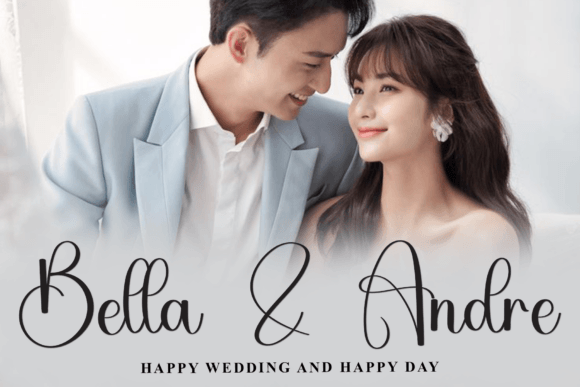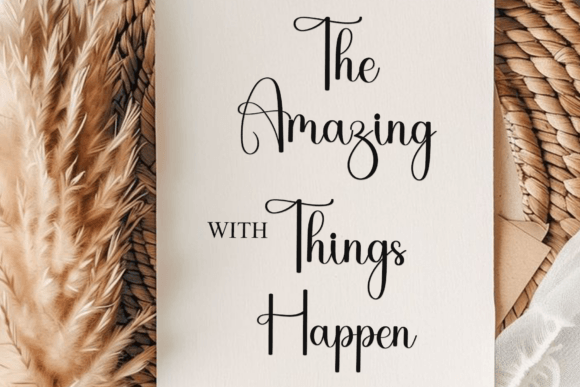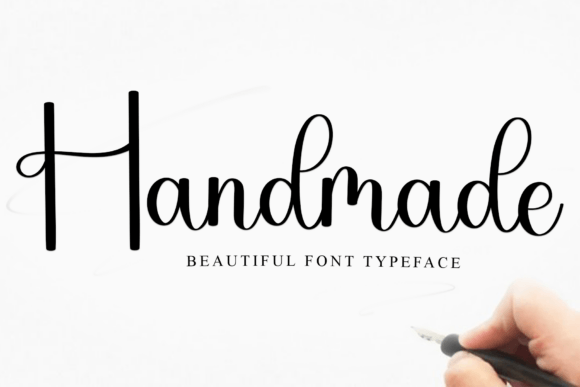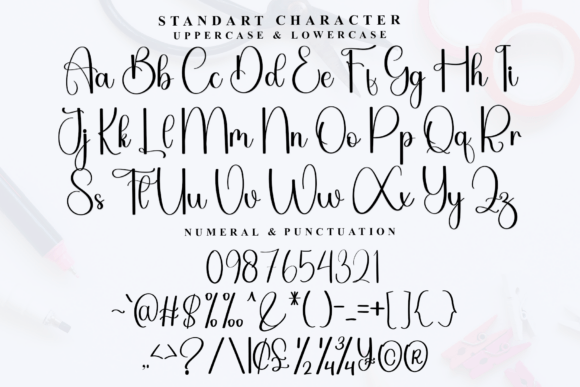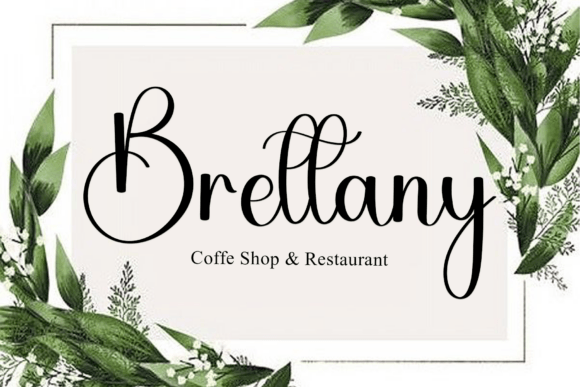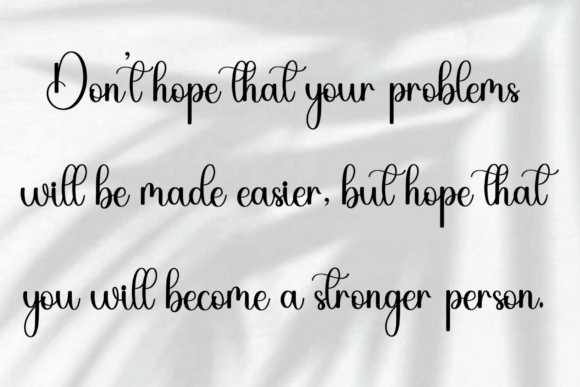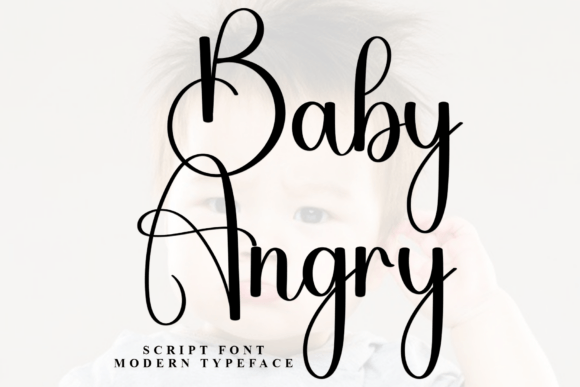
Baby Angry Font: The Perfect Choice for Designers and Crafters
Are you looking for a font that can add a touch of personality and whimsy to your designs? Look no further than the Baby Angry font! This lovely and timeless handwritten font is perfect for creating eye-catching logos, branding, and quotes that will leave a lasting impression on your audience.
What Makes Baby Angry Font So Special?
Baby Angry font is a beautifully crafted handwritten font that boasts a unique and beautiful touch. Every letter has been carefully designed to give your designs a personal and human feel that will set them apart from the rest. The font’s distinctive style is perfect for designers and crafters who want to add a touch of warmth and personality to their work.
Key Features of Baby Angry Font
- Handwritten style: Baby Angry font has a beautiful handwritten style that gives your designs a personal and human feel.
- Unique and beautiful touch: Every letter has a unique and beautiful touch that will make your designs come alive.
- PUA encoded: The font is PUA encoded, which means you can access all of the amazing glyphs and ligatures with ease.
- Perfect for logos and branding: Baby Angry font is perfect for creating eye-catching logos and branding that will leave a lasting impression on your audience.
- Supports multiple languages: The font supports multiple languages, making it a great choice for designers and crafters who work with clients from around the world.
Why Choose Baby Angry Font?
There are many reasons why Baby Angry font is the perfect choice for designers and crafters. Here are just a few:
- High-quality design: The font has been designed to the highest standards, ensuring that your designs look professional and polished.
- Versatility: Baby Angry font can be used for a wide range of design projects, from logos and branding to quotes and social media graphics.
Tips and Tricks for Getting the Most Out of Baby Angry Font
Here are a few tips and tricks to help you get the most out of Baby Angry font:
- Experiment with different colors and textures: Baby Angry font looks great in a variety of colors and textures, so don’t be afraid to experiment and find the perfect combination for your design.
- Use it for quotes and social media graphics: The font is perfect for creating eye-catching quotes and social media graphics that will grab the attention of your audience.
- Pair it with other fonts: Baby Angry font pairs well with other fonts, so try combining it with a bold or serif font to create a unique and interesting design.
In conclusion, Baby Angry font is a lovely and timeless handwritten font that is perfect for designers and crafters who want to add a touch of personality and whimsy to their designs. With its unique and beautiful touch, PUA encoding, and ease of use, it’s an excellent choice for creating eye-catching logos, branding, and quotes. So why wait? Download Baby Angry font today and start creating stunning designs that will leave a lasting impression on your audience!